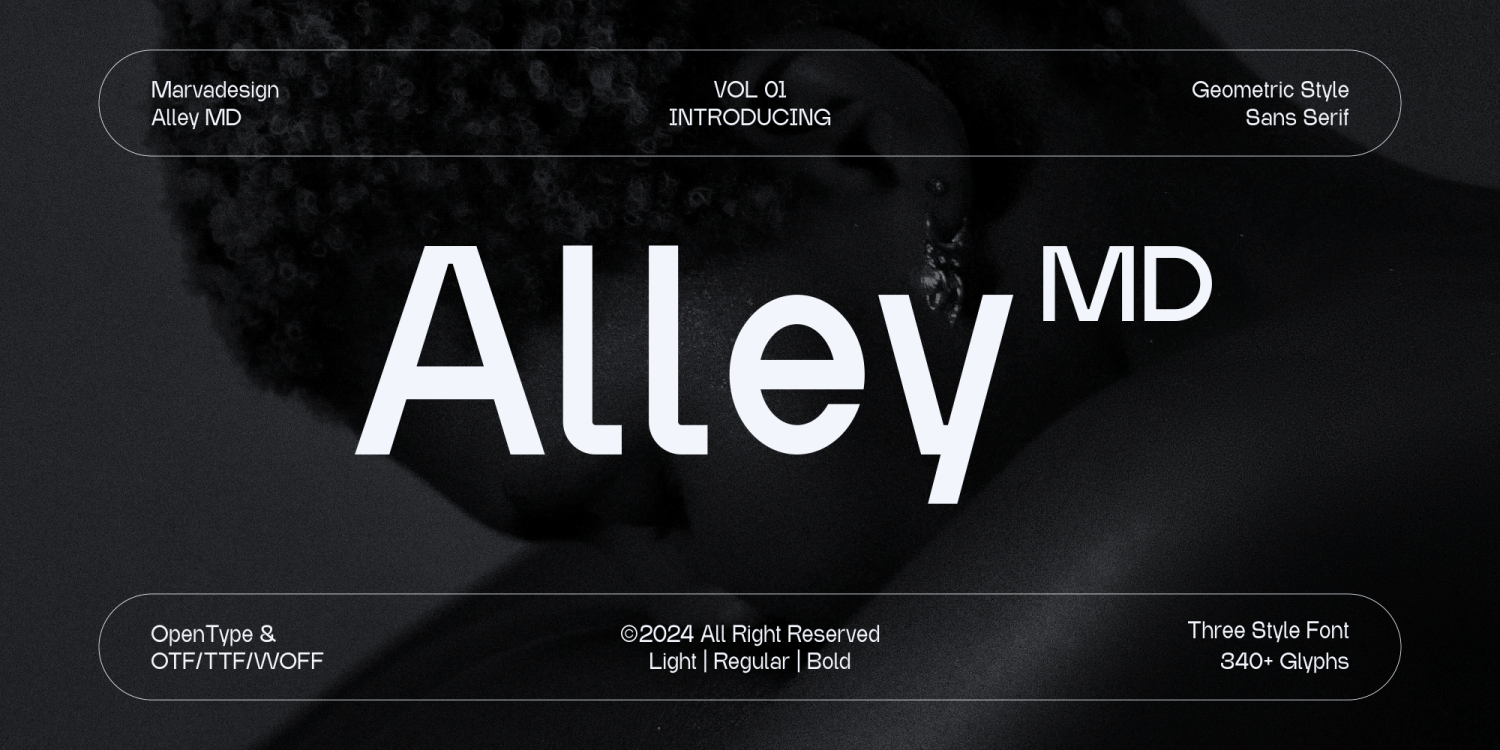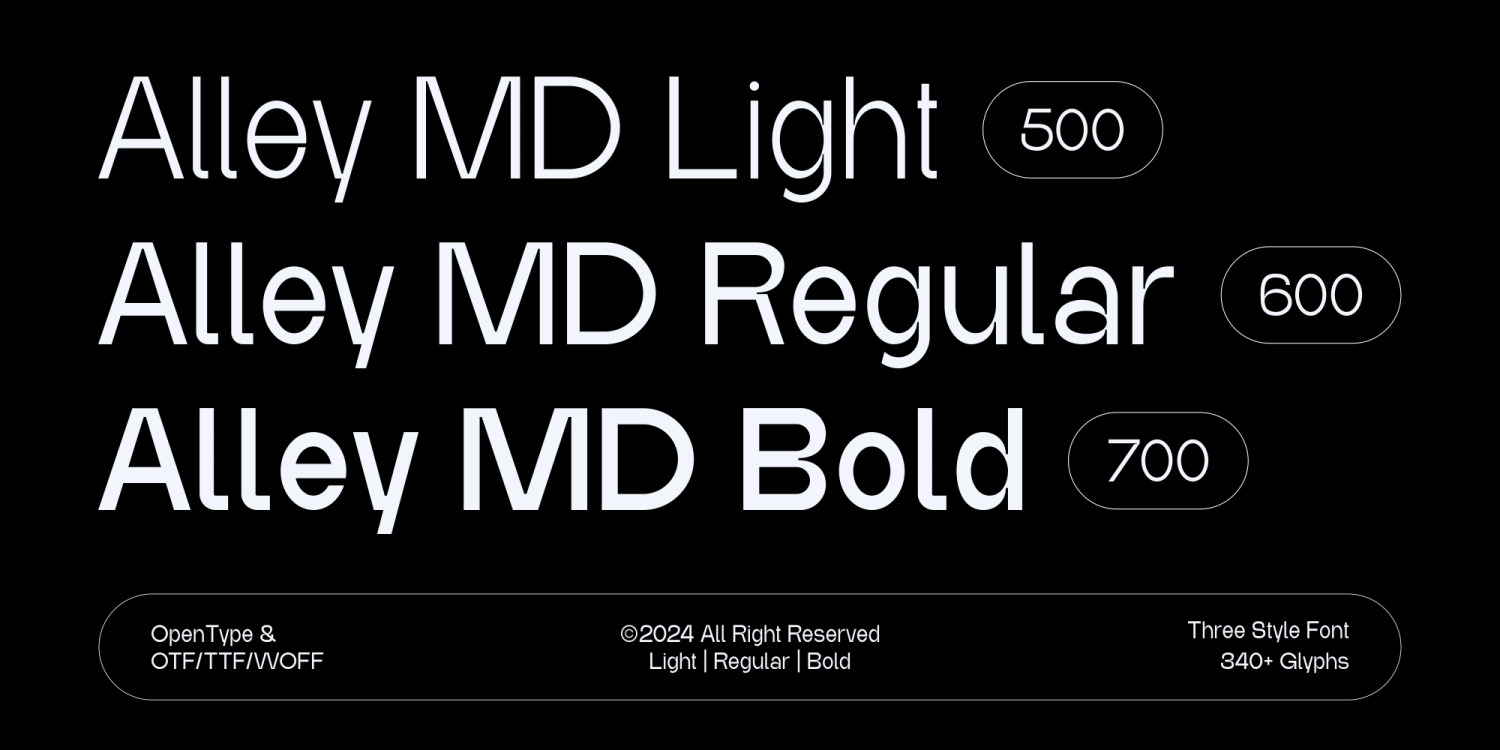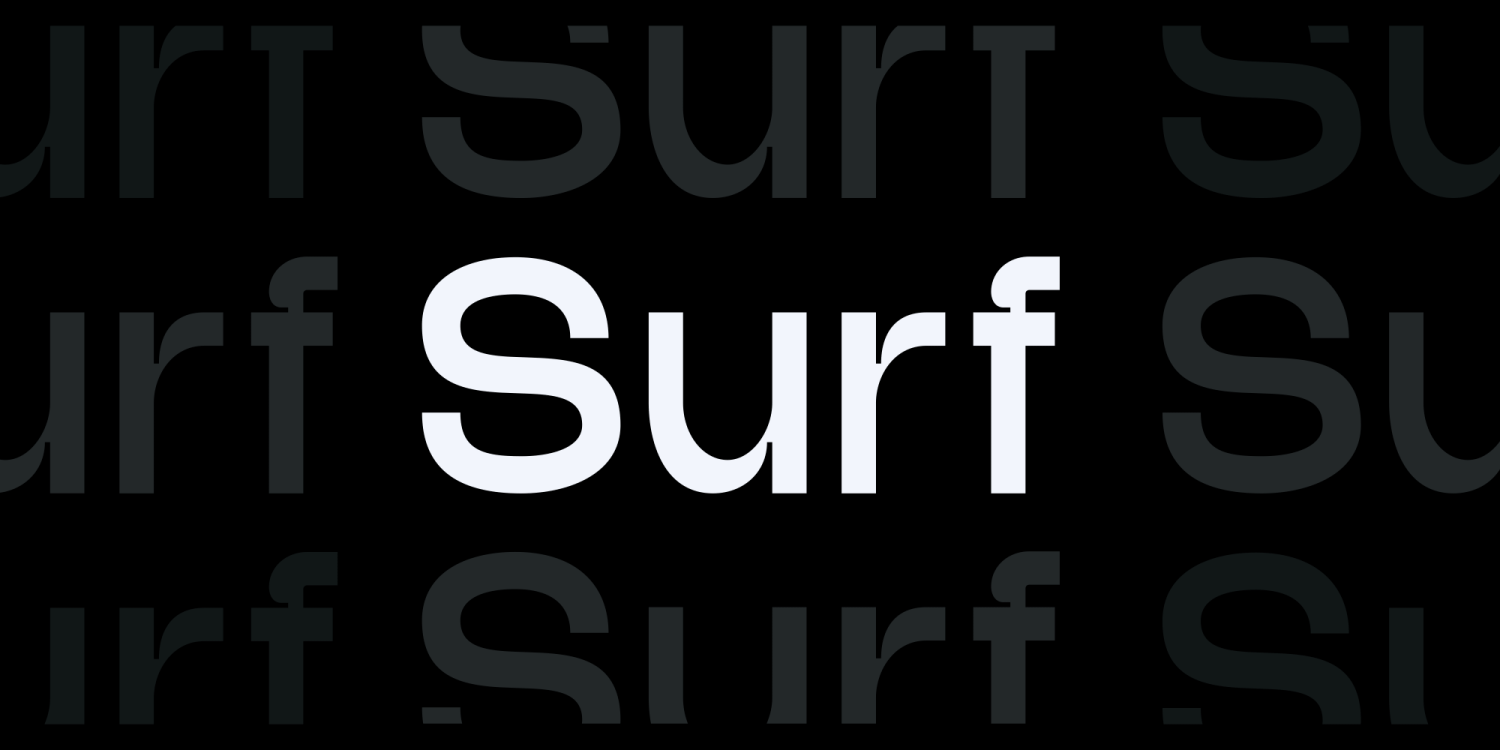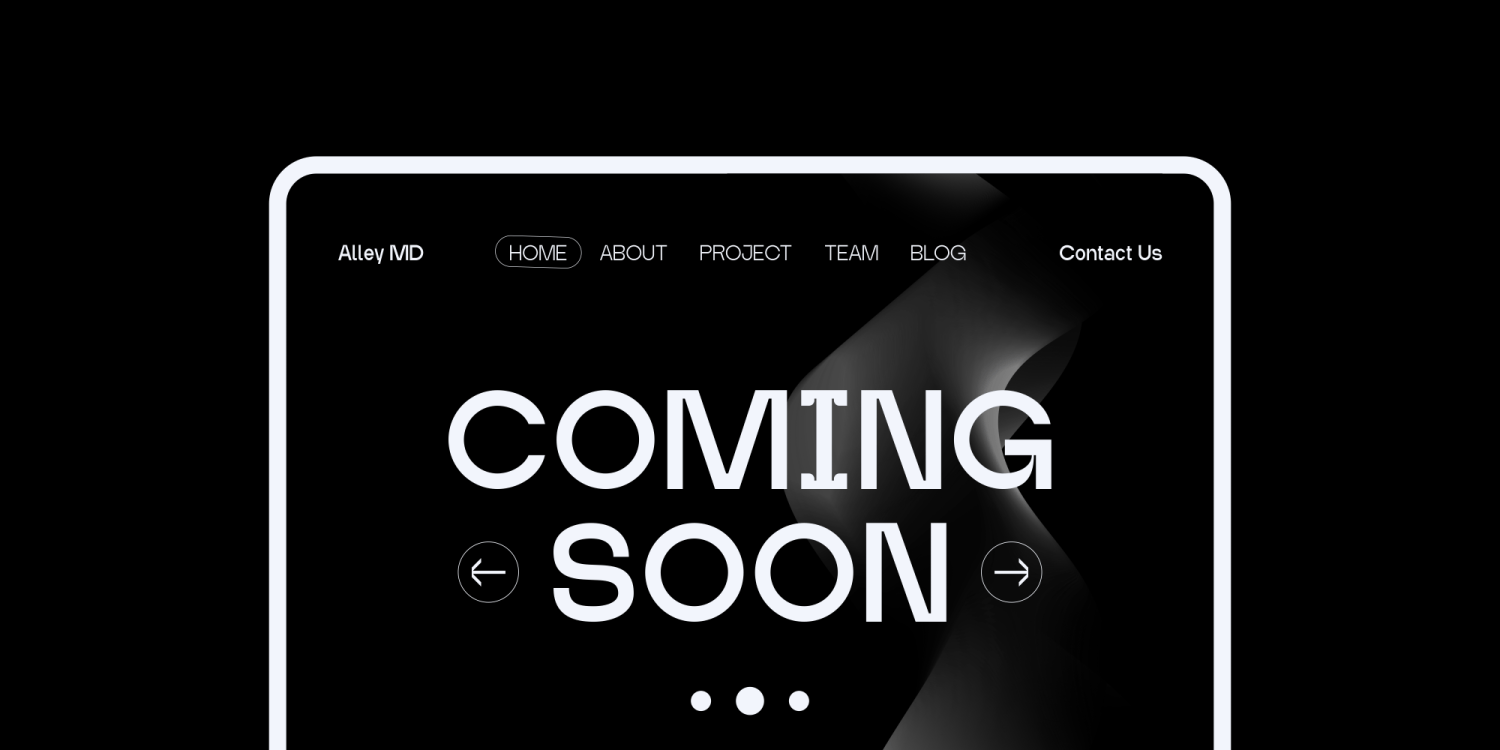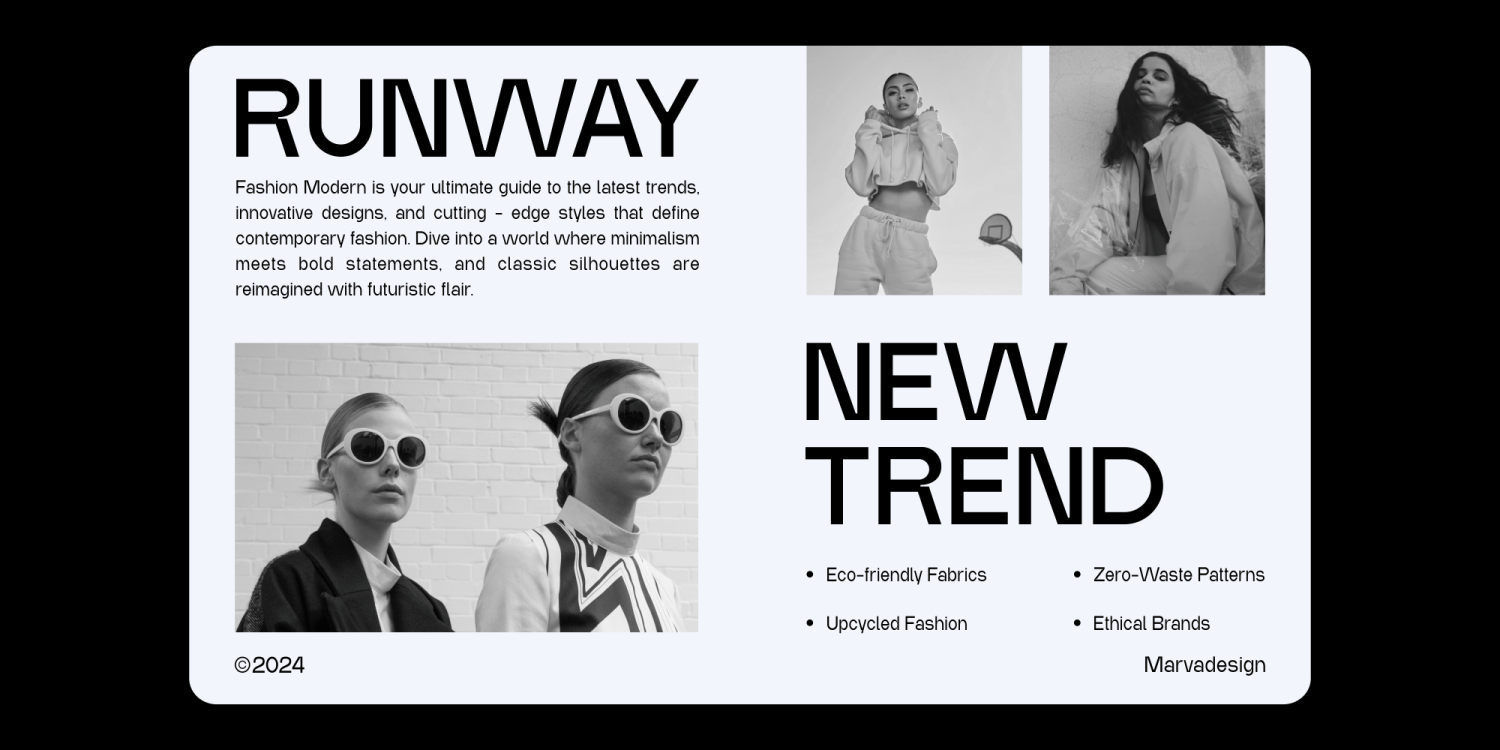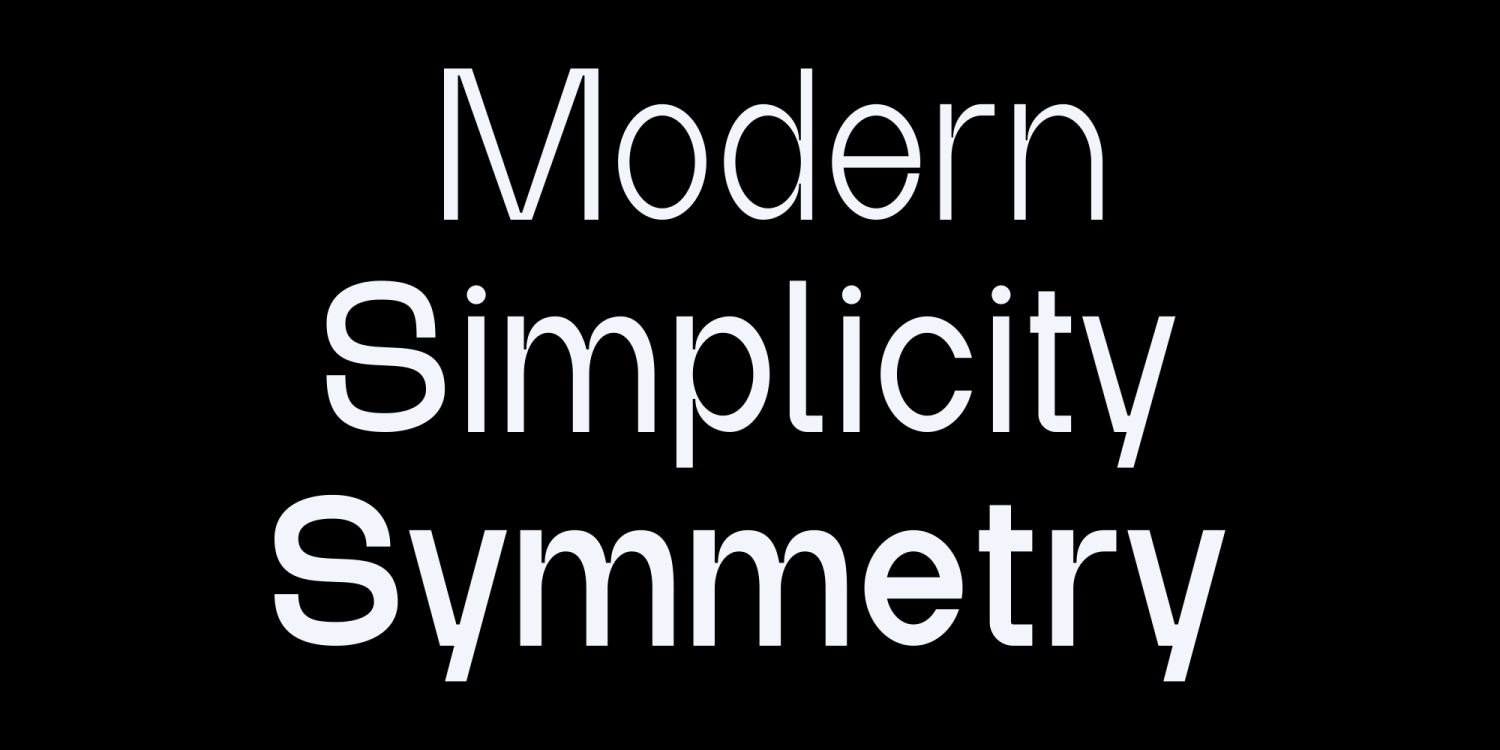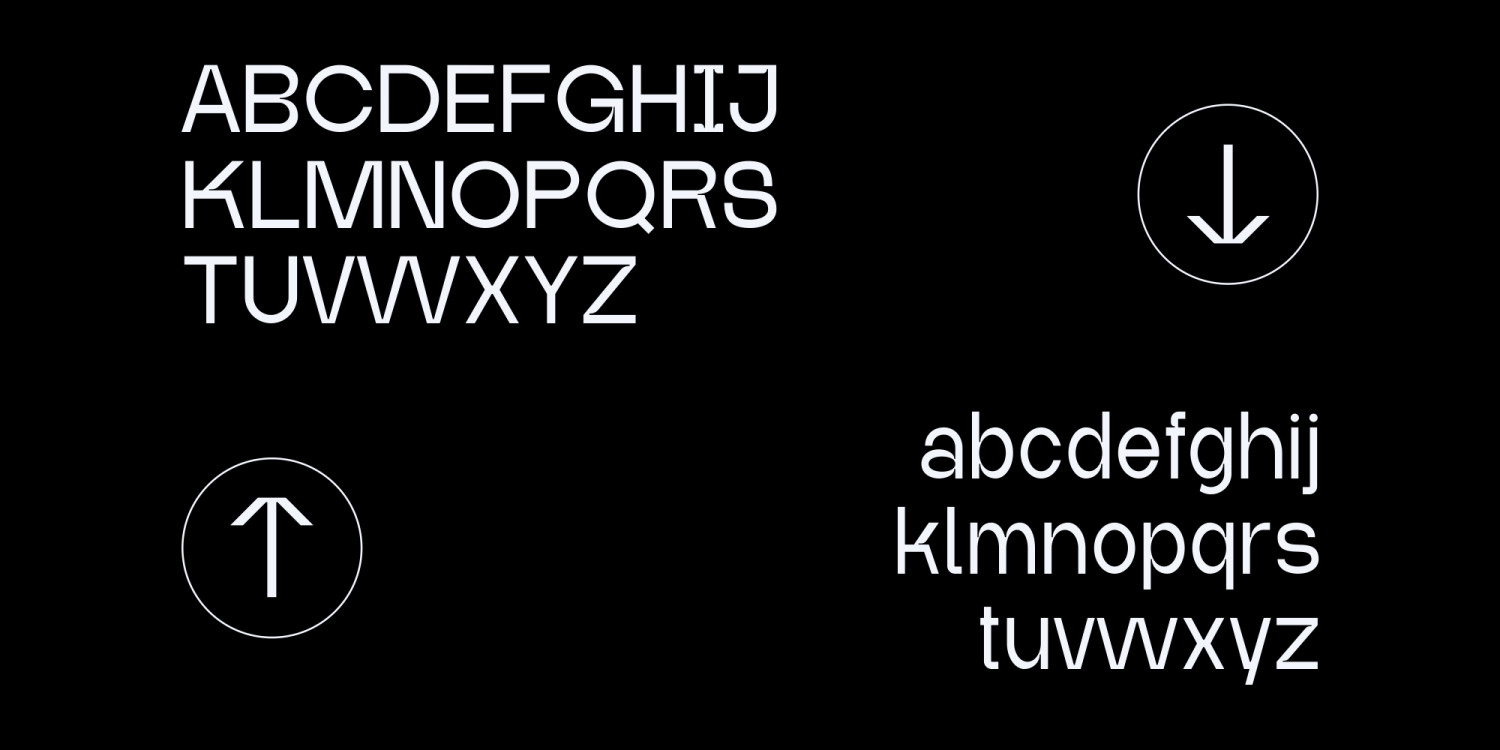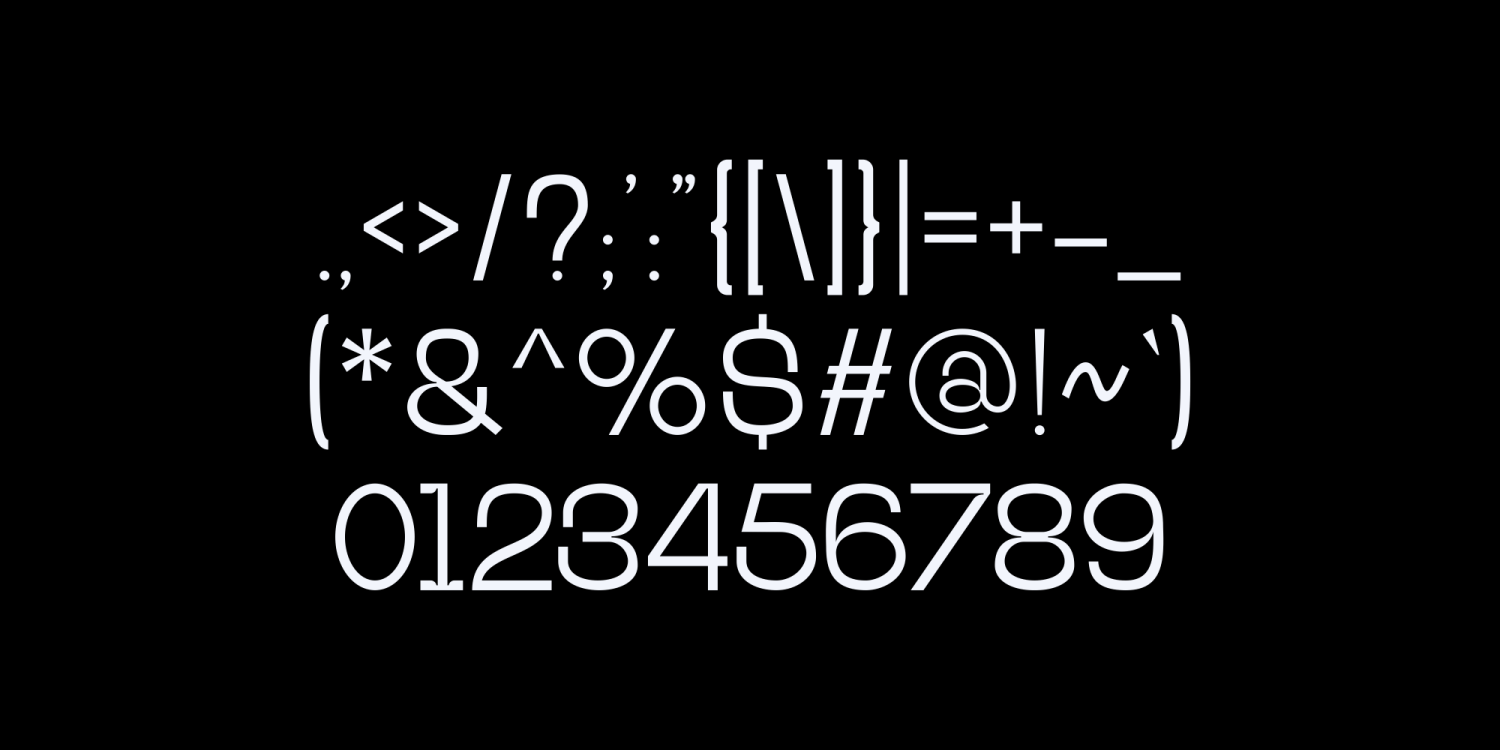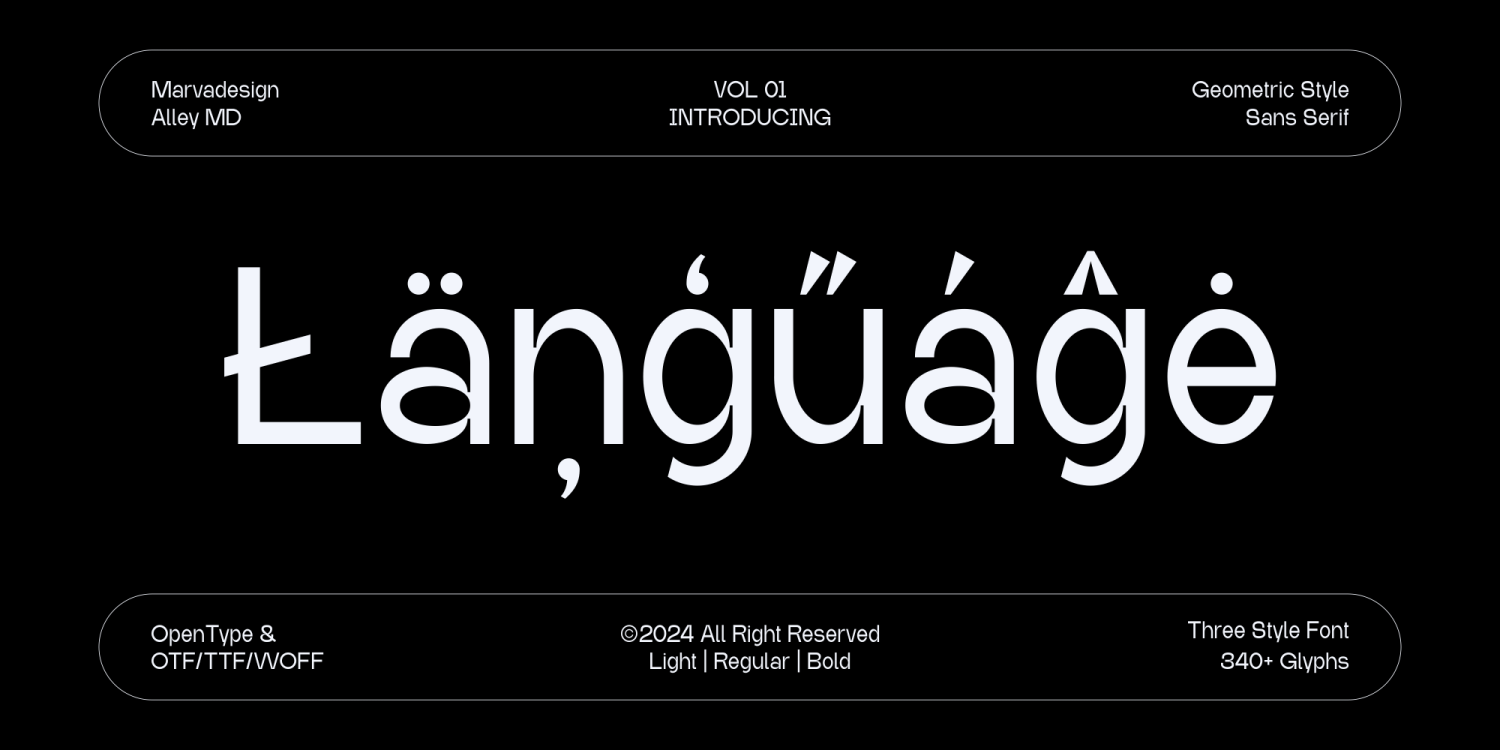
Alley MD
Introducing Alley MD is a meticulously crafted sans serif font that embodies the essence of clean, geometric design. It is characterized by its modern aesthetic, combining simplicity with subtle, unique details that set it apart from other fonts in its category.
Geometric Precision Each character in Alley MD is designed with geometric shapes at its core, ensuring consistency and balance throughout the typeface.
Clean Lines The font boasts smooth, clean lines that contribute to its modern and minimalistic appearance, making it suitable for contemporary design projects.
Subtle Box Strokes A distinctive feature of Alley MD is the small, square strokes at the terminals of some characters. These subtle details add a touch of uniqueness and sophistication without compromising the overall clean look of the font.
Versatile Weights
- Light: The Light variant is perfect for creating a delicate and airy feel, ideal for subtle branding, fine print, or elegant invitations.
- Regular: The Regular weight strikes a perfect balance between thickness and legibility, making it suitable for body text, user interfaces, and general-purpose design.
- Bold: The Bold variant commands attention with its strong presence, perfect for headlines, posters, and other elements where a bolder statement is needed.